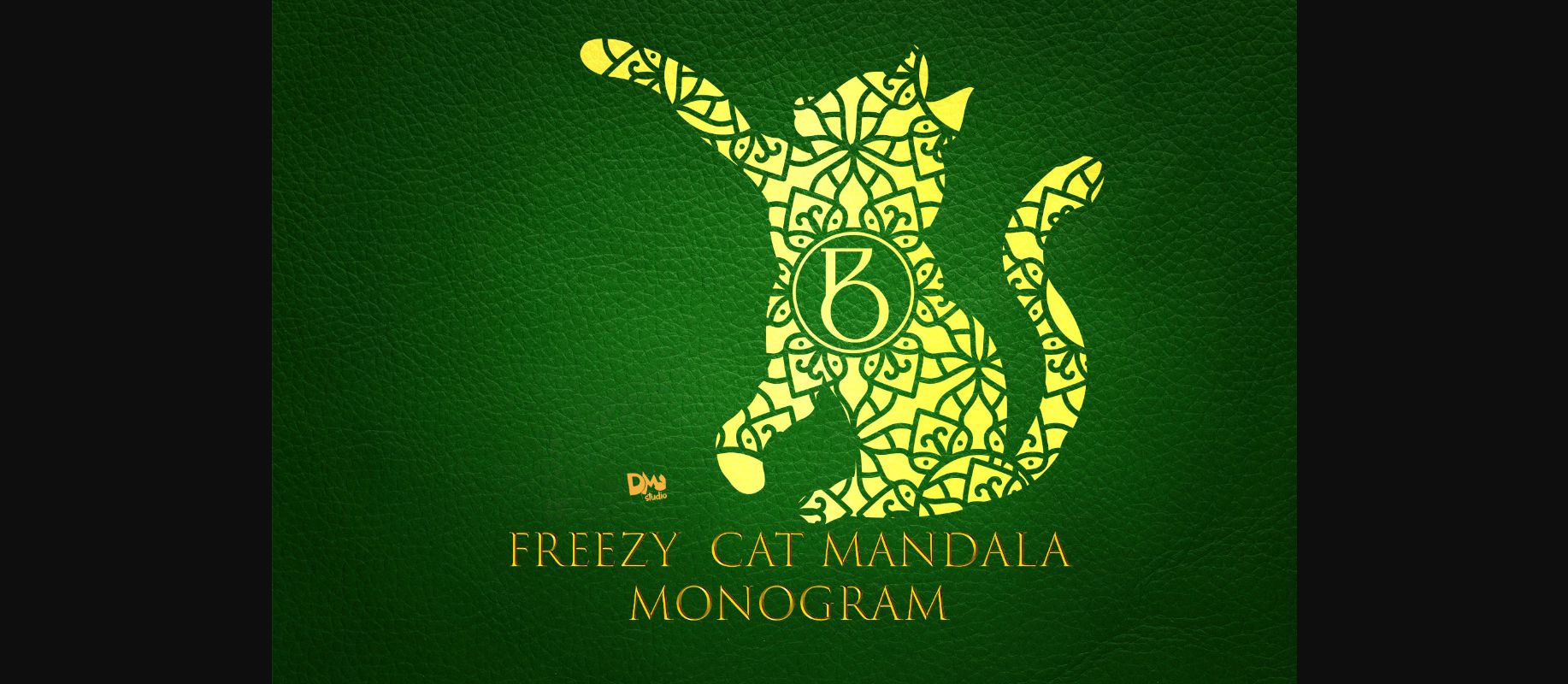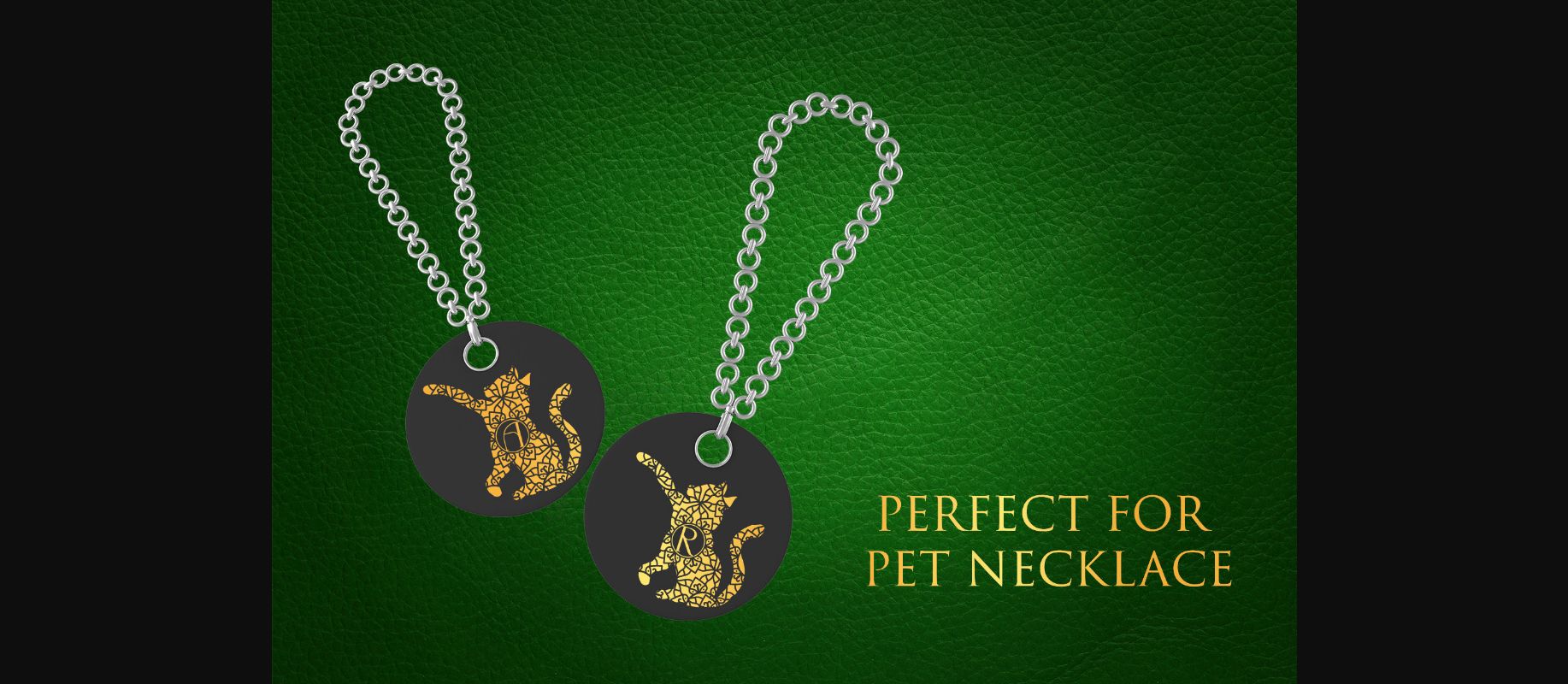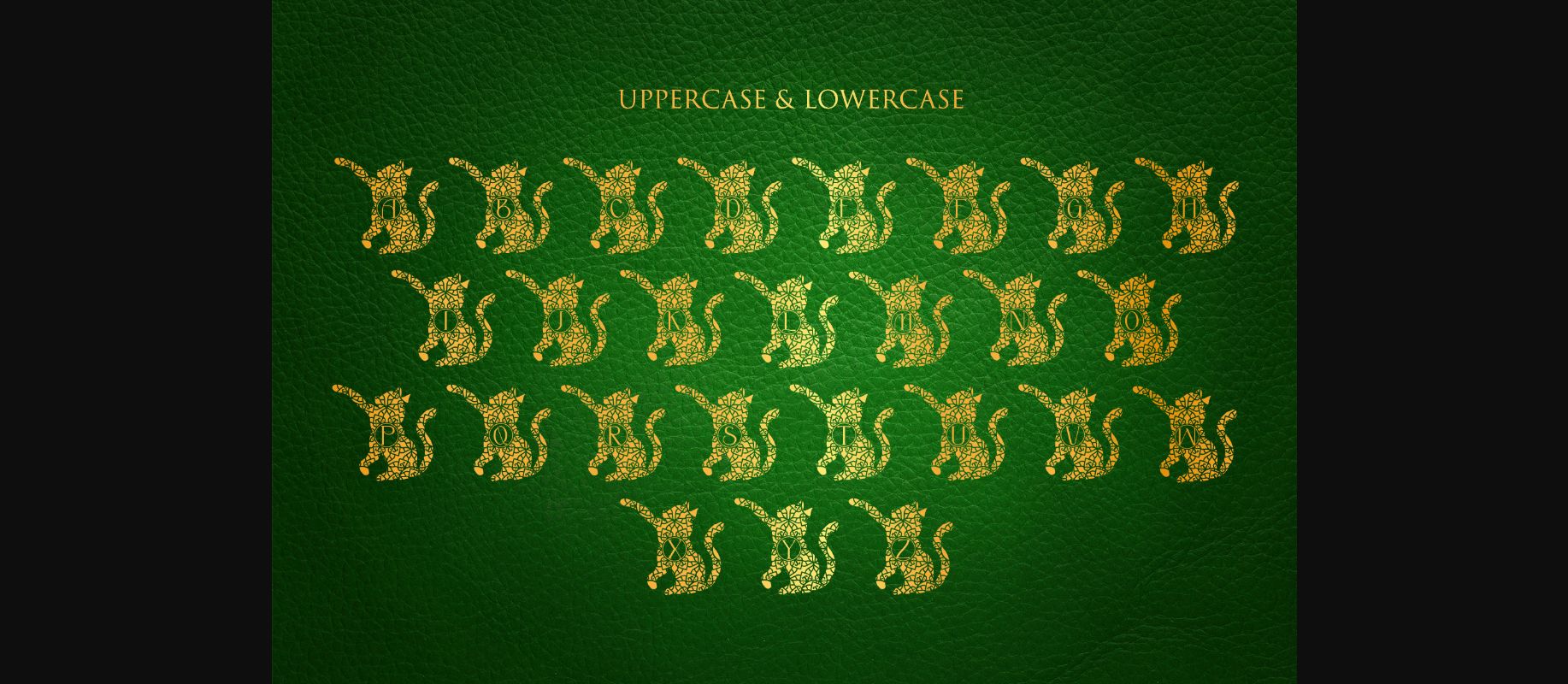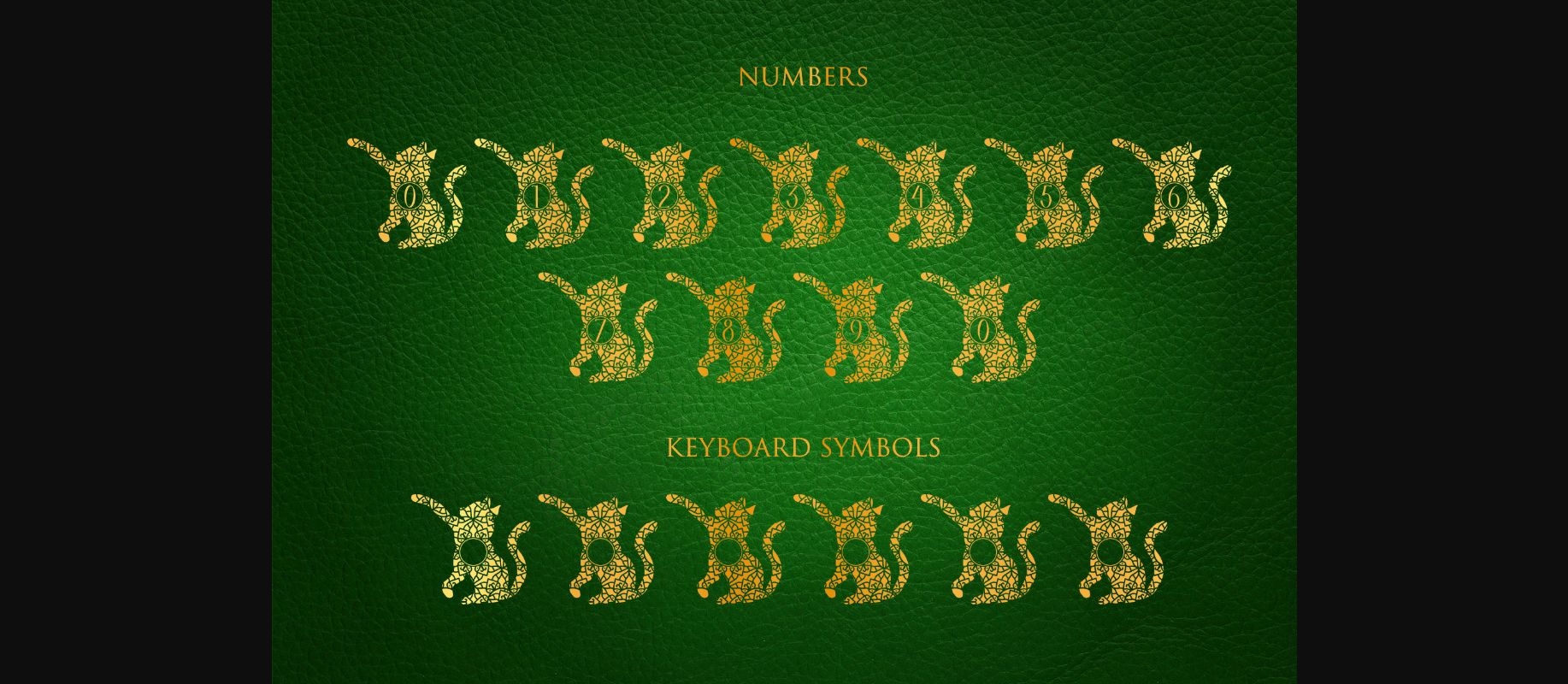
HomeDecorative FontsFreezy Cat Mandala Monogram Font Decorative Fonts Freezy Cat Mandala Monogram Font FacebookTwitterPinterestWhatsApp 1 of 6 ... Freezy Cat Mandala Monogram Font Poster 2... Freezy Cat Mandala Monogram Font Poster 3... Freezy Cat Mandala Monogram Font Poster 4... Freezy Cat Mandala Monogram Font Poster 5... Freezy Cat Mandala Monogram Font Poster 6... About Freezy Cat Mandala Monogram Font Freezy Cat Mandala Monogram is the ultimate cat-lovers font. This purrfect decorative typeface will enhance any creative project dedicated to kittens. DOWNLOAD NOW People also explored Rosalint Font Kasper Lullaby Font Theyriad Font Crush Tease Font Samarquand Font Angelica Font The Hustle Font Newest Font Farmhouse Font 164 0 TagsFreezy Cat Mandala Monogram Font Previous articleChill Cat Mandala Monogram FontNext articleAngry Cat Mandala Monogram Font LEAVE A REPLY Cancel reply Comment: Please enter your comment! Name:* Please enter your name here Email:* You have entered an incorrect email address! Please enter your email address here Website: Save my name, email, and website in this browser for the next time I comment. Personal Use Free Cataleya Personal Use Free Read more about this font Pridaem Cooper Personal Use Free Read more about this font Pretender Personal Use Free Read more about this font Concrete Wall Personal Use Free Read more about this font BLOG Transform Your Website: Elevate Your Typography with 7 Best Web Font Generators Are you ready to transform your website's typography from ordinary to extraordinary? Great! Today, we're diving into the world of web font generators, which... Elegant Wedding Invitation Fonts – Handwritten & Script Fonts The 10 Best Handwriting Fonts to Add Personality to Your Designs Where to Buy American Fonts Online in 2024